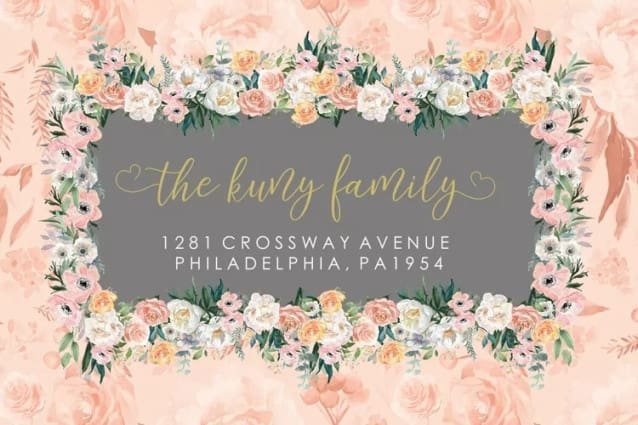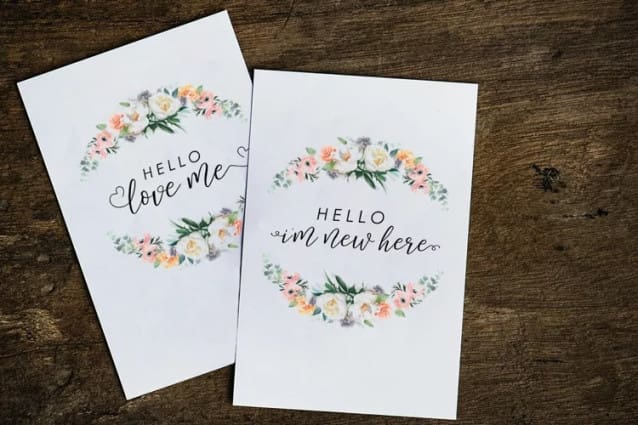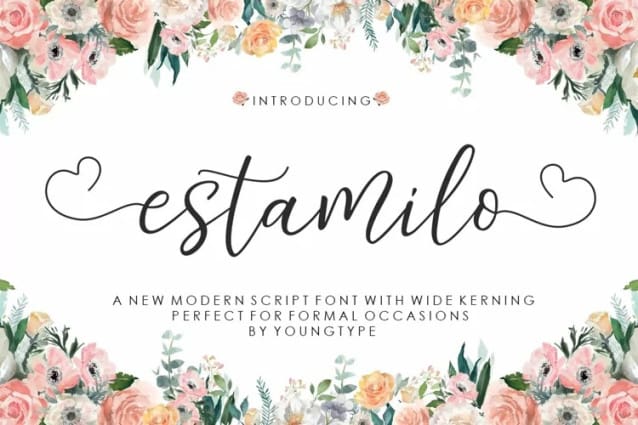
Estamilo Font
Estamilo Font, this is a modern smooth font typography with a delicious stream. The EstamiloScript displays alternative characters, including the start, end, and ligatures terminals and International support for most Western languages ??is included.